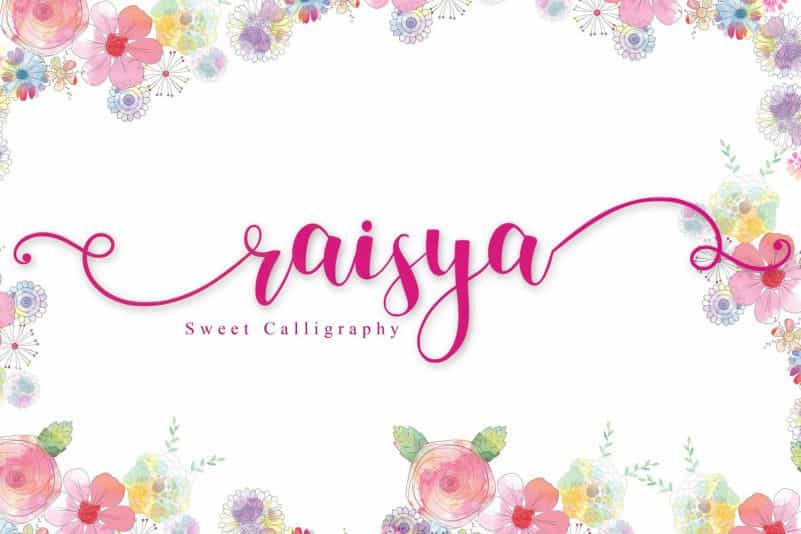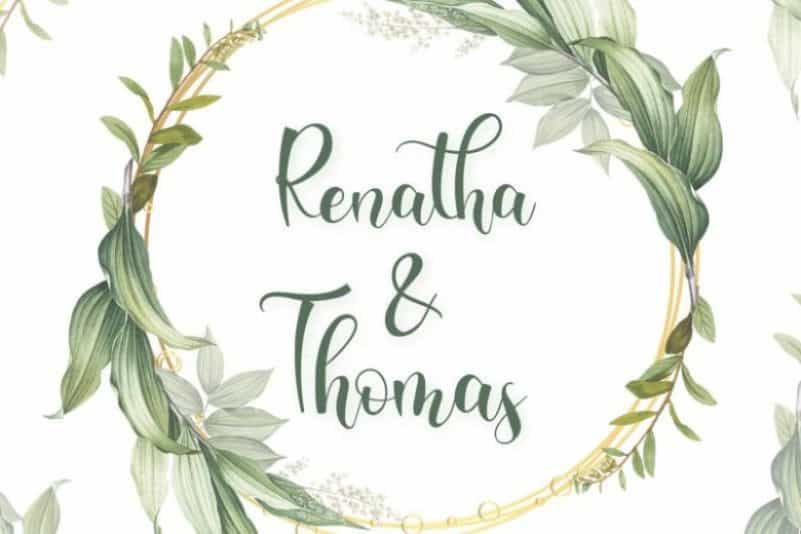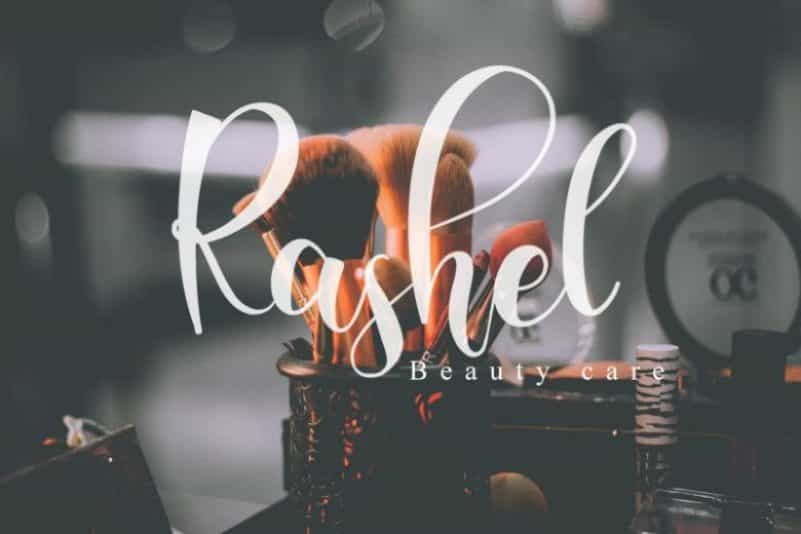
Raisya Font! It is a perfectly imperfect and well-driving font with the right texture for a real ink. You can apply it to many designs such as ads, sales, logos, branding, posters, social media posts and text overlays; just name the rest!